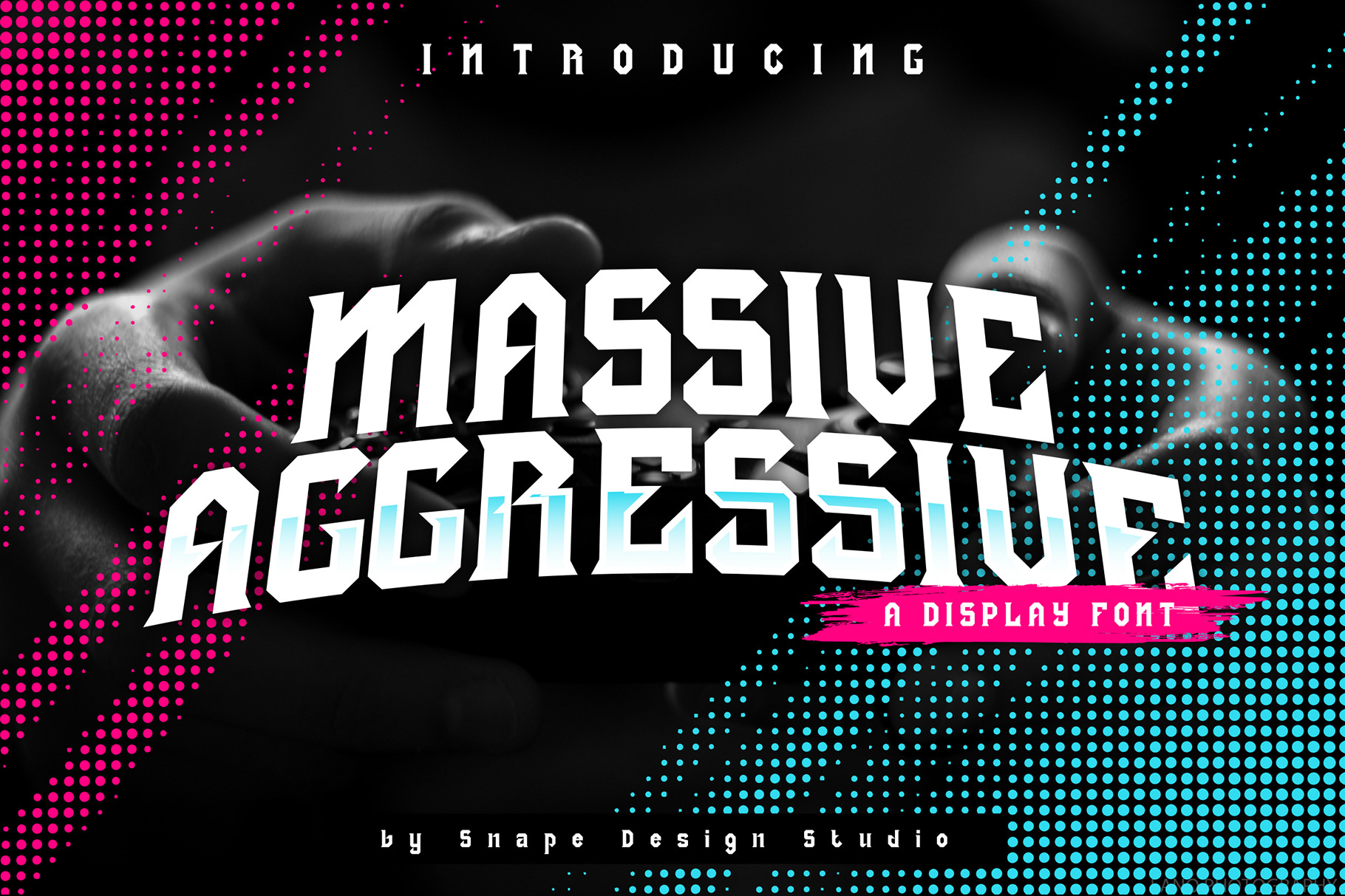
Massive Aggressive - Display Font
Massive Aggressive is a bold display font, incredibly strong and powerful. Add it to your sporty events and notice how your designs will come up front! suitable for your team logo or community logo.
Great for Logo, Sticker, Jersey, Invitation Card, Brochure, etc.